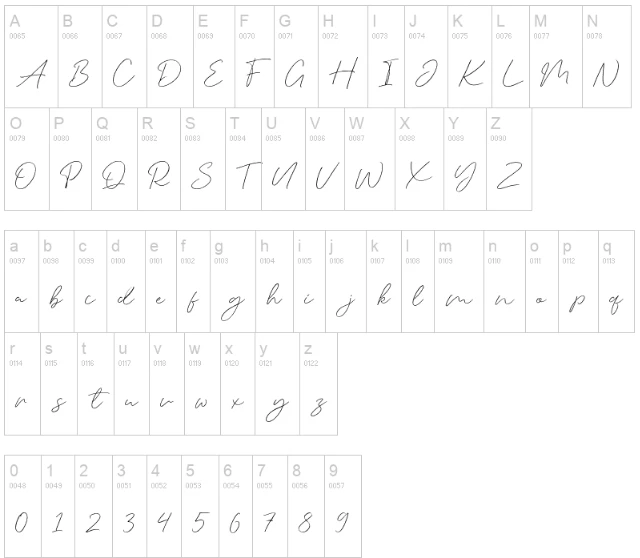
Introducing Silent Caroline! a lovely script with a handwritten font. Letterative Studio created and shared it. This typeface is available in TTF and OTF formats. Silent Caroline also provides multilingual assistance. This font belongs to the Regular subfamily. Silent Caroline is a beautiful typeface that may be used in Homeware Designs or as a nice text overlay on any backdrop image. This font is also PUA encoded, which is a fantastic feature for users. The typeface contains appealing glyphs, making it appropriate for any creative endeavor.
This typeface will appeal to designers who enjoy creating adorable designs with bright backgrounds. You’ll need an application that supports OpenType capabilities, such as Adobe Illustrator CS, Adobe Indesign & CorelDraw X6-X7, Microsoft Word 2010 or later versions, to activate the OpenType Stylistic alternatives. The Font is also compatible with Windows, Apple/Mac OS X, Linux, Cricut, Silhouette, and other cutting machines, which is i think an outstanding quality as a Script and handwritten font.
The Silent Caroline is a short and handwritten font that is both thin and lovely. Make your ideas more realistic and create stunning designs with it! The lovely font is ideal for product packaging, branding projects, magazines, social media, and weddings, among other things.